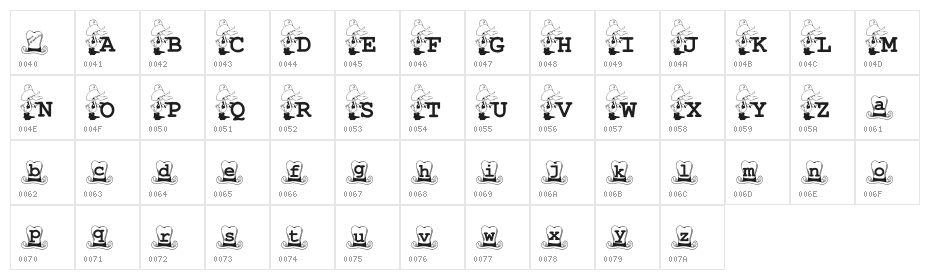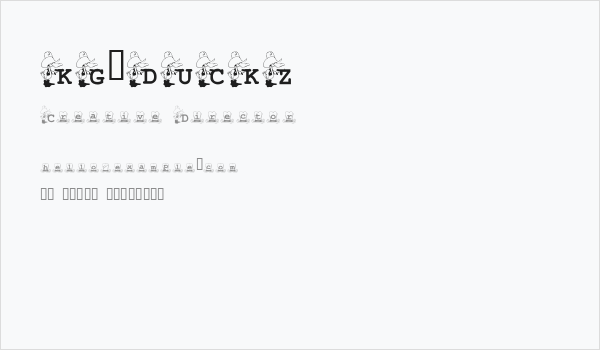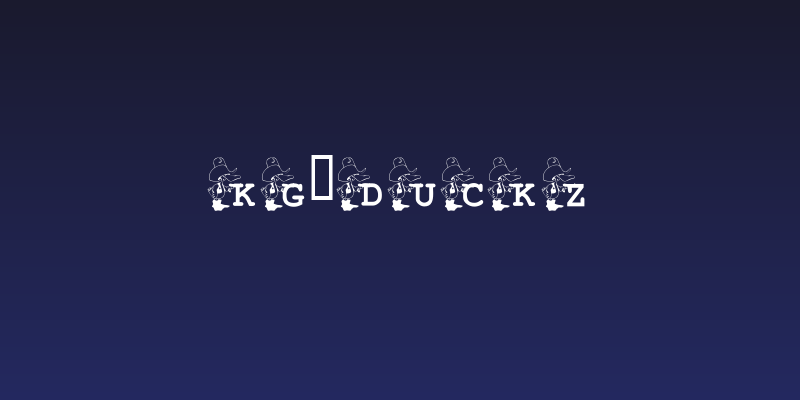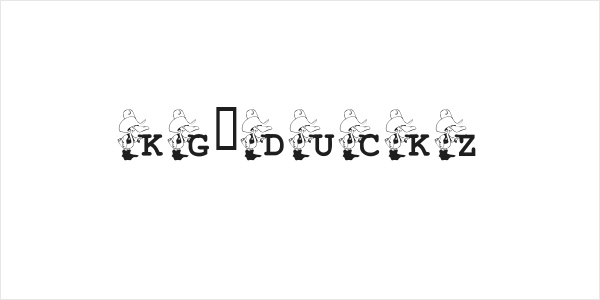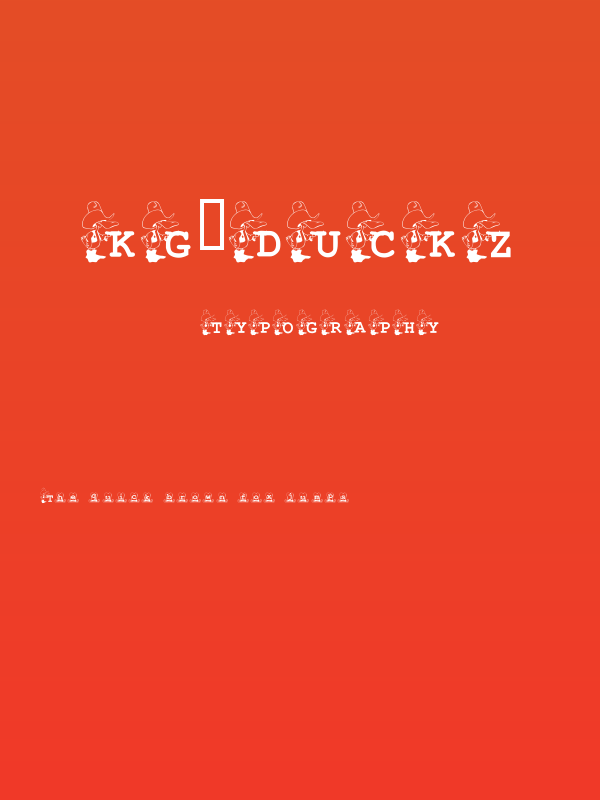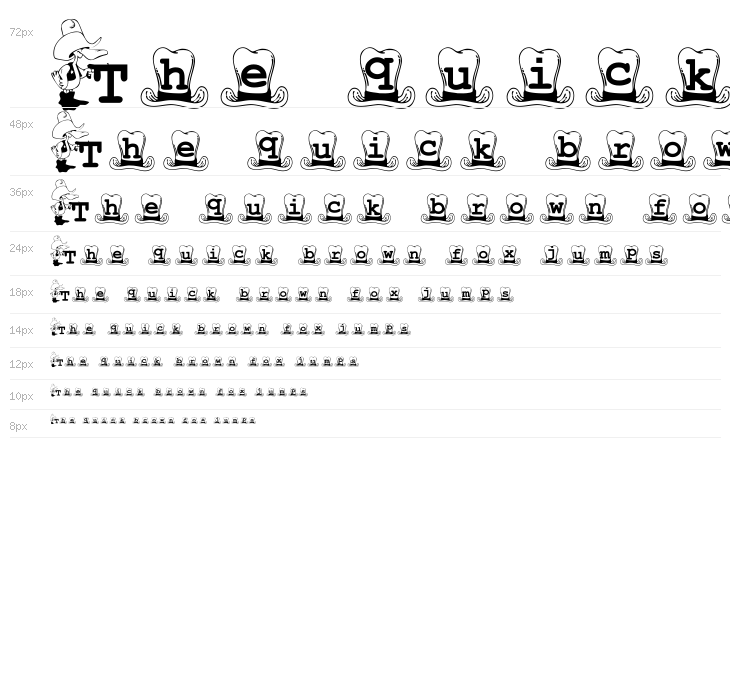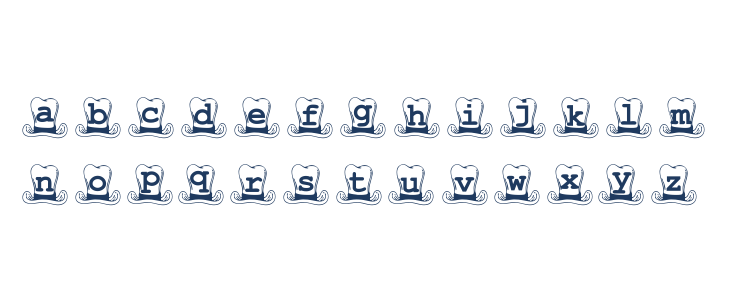
KG_DUCKZ Font
KG_DUCKZ Description
This playful and whimsical font features a unique design where each character is accompanied by a cartoon duck illustration. The uppercase letters are bold and prominent, with the duck character adding a decorative touch to each letter. The lowercase letters are more ornate, with swirls and curls that give them a playful, storybook feel. The font is highly decorative, making it ideal for projects that require a fun and engaging visual element. The combination of bold uppercase and ornate lowercase characters creates a dynamic contrast, making it suitable for eye-catching designs.
| Use Case | Headlines, Logos, Decorative text |
| Proposed Projects | Ideal for children's books, playful invitations, themed party decorations, and fun branding projects. |